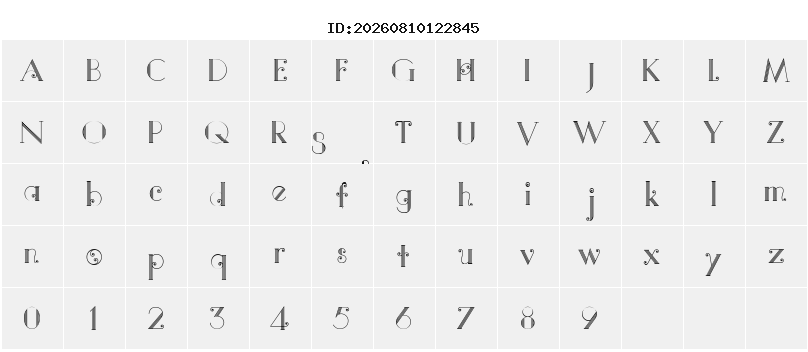
• Font Name: Quito
• Designer: David Ortega
About Quito.ttf
Quito.ttf is a modern, elegant sans-serif font designed for ultimate readability and visual harmony. Perfect for branding, headlines, web design, and print materials.